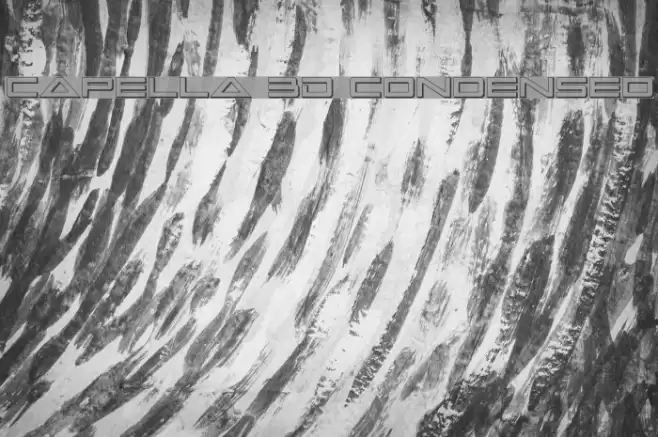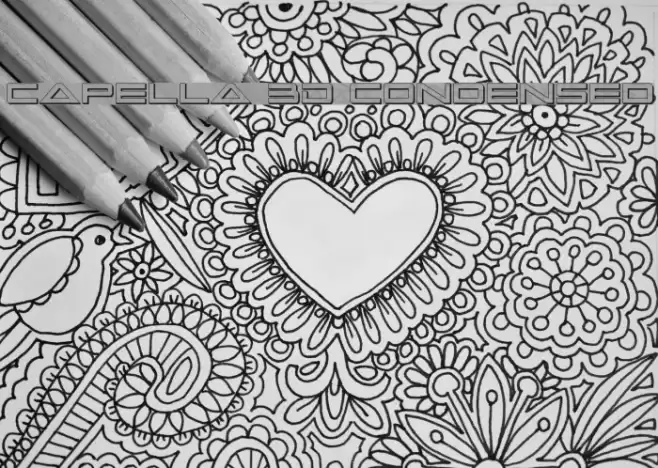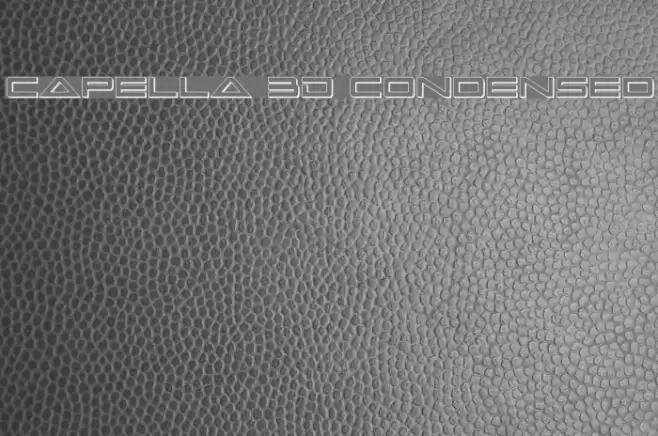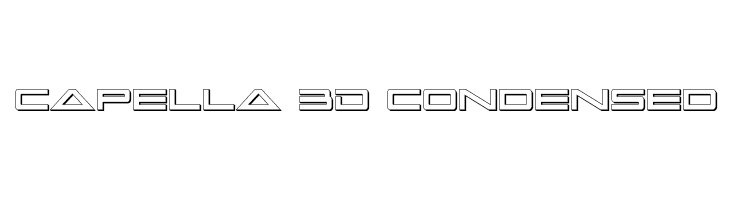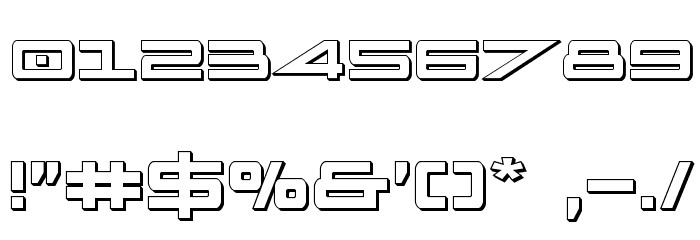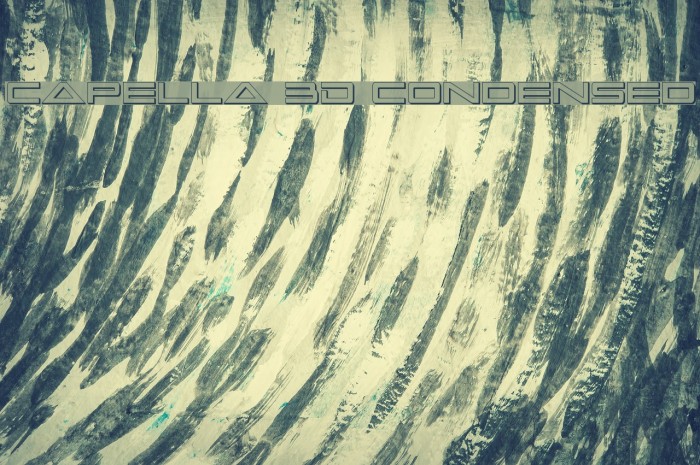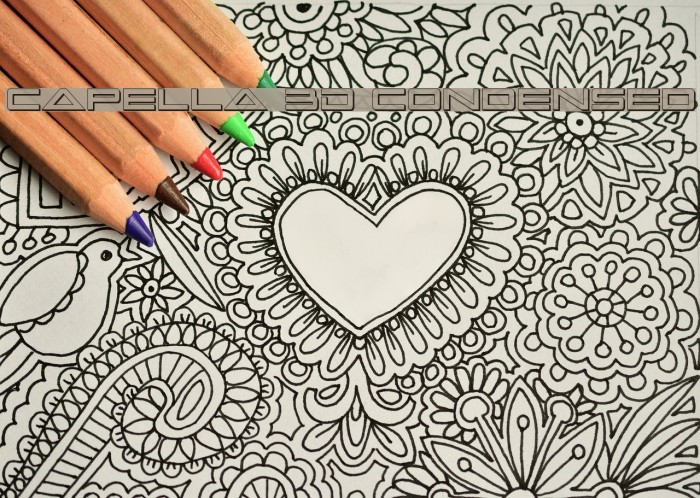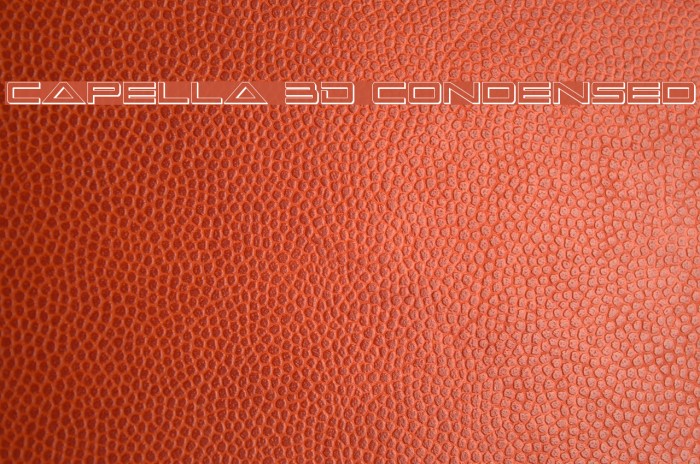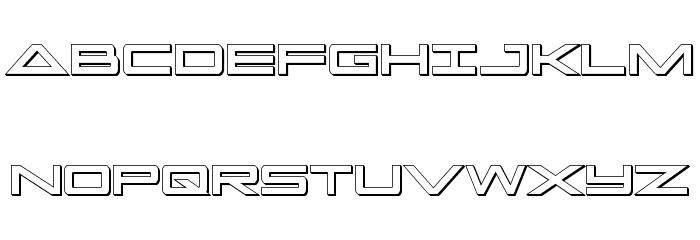
Capella 3D Condensed Font
Capella 3D Condensed Description
This font features a distinct three-dimensional effect, achieved through the use of bold outlines and inner lines that create a layered look. The characters are geometric and angular, with a futuristic and technical appearance. The uppercase and lowercase letters maintain a consistent style, emphasizing sharp edges and straight lines. Numbers and special characters follow the same design principles, ensuring uniformity across all glyphs. The condensed width of the characters allows for efficient use of space, making it suitable for designs where space is limited. The overall aesthetic is modern and dynamic, appealing to projects that require a bold and eye-catching typeface.
A 3D geometric font with a condensed, futuristic style from Uncategorized fonts.
- Proposed Projects: Ideal for technology branding, sci-fi themed designs, video game interfaces, and modern posters.